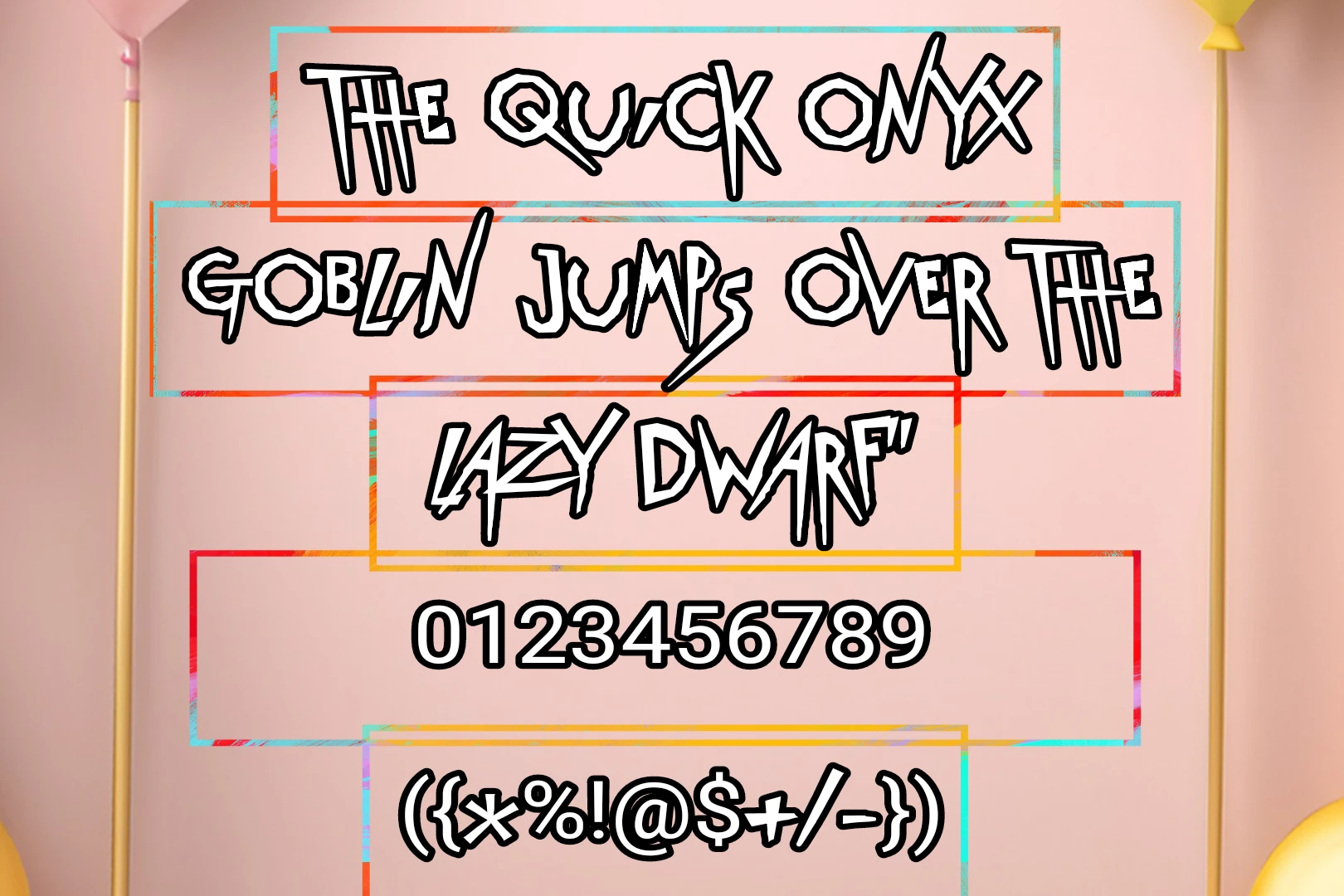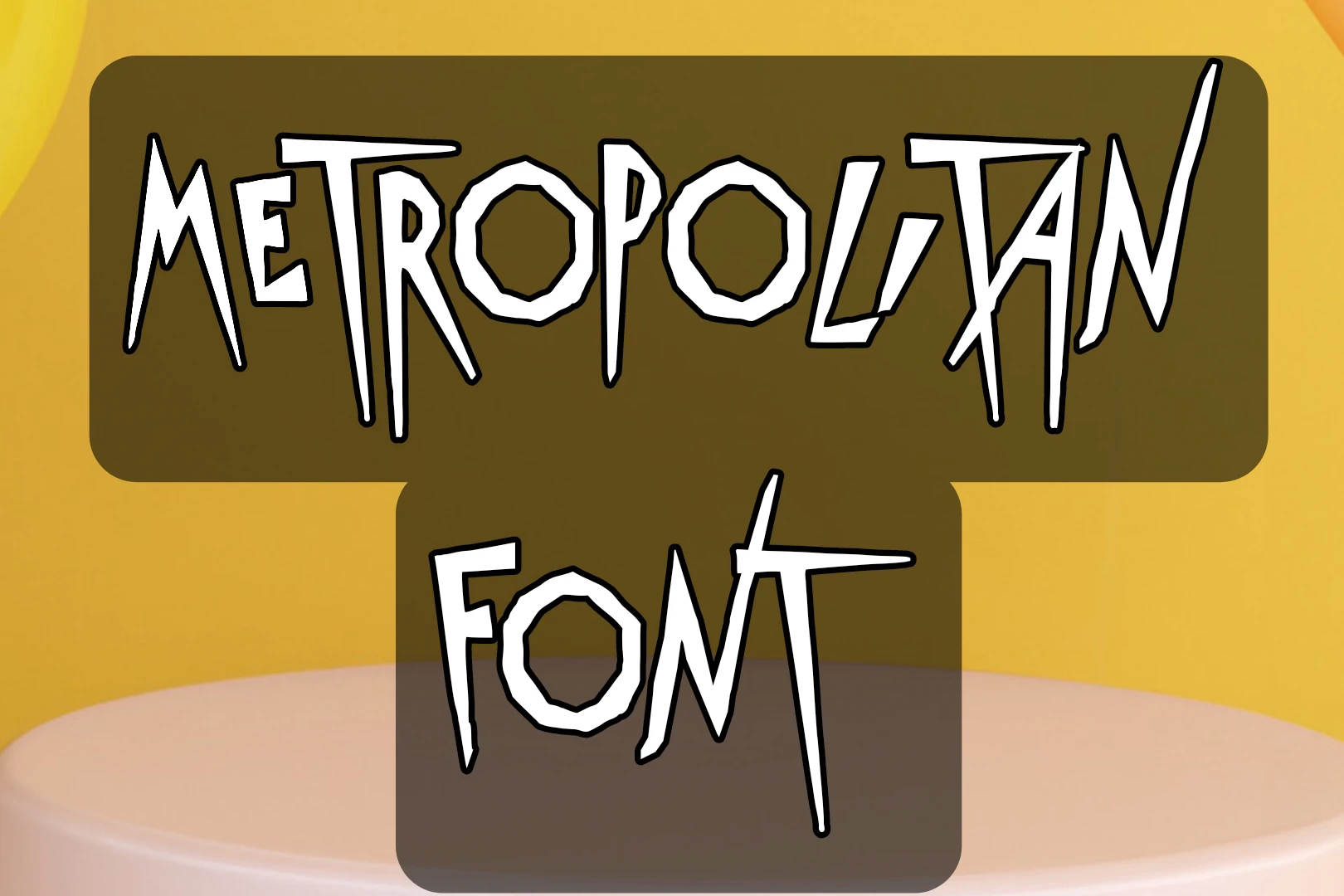
Metropolian Font was designed by Empire of Dust and is under the category of fancy texture family with both OTF and TTF file formats. It is a versatile font that adds an elegant touch to any design project. With its intricate details and sophisticated curves, it captures the essence of timeless beauty. Whether you’re creating wedding invitations, branding materials, or editorial layouts, this typeface will elevate your work to a new level of sophistication.
The OTF and TTF file formats ensure compatibility across different platforms, making them convenient to use. This Font inspire your creativity and bring a touch of glamour to your designs. Introduced to the public in 2015, it quickly gained popularity for its elegant design and versatility.
This font boasts a wide range of glyphs and characters, making it suitable for diverse applications. Its modern and minimalist design allows for creative expression in logo design, website headings, editorial layouts, and more. Additionally, its clean and polished look ensures readability and visual appeal in any design project.
Uses of Metropolian Font
It is widely used across various design projects due to its sleek aesthetic and flexibility. Designers often utilize it in logo creation to achieve a contemporary and professional look. Its clean lines and sophisticated appearance help businesses establish a strong visual identity.
In web design, this font is commonly employed for headings, navigation menus, and body text. Its modern and minimalist style adds a touch of elegance to websites, enhancing the overall user experience.
Furthermore, in editorial design, this font is favored for its readability and versatility. It can be used for magazine headlines, article titles, and pull quotes, providing a cohesive and stylish layout.
| Name | Metropolian Font |
| Designer | Empire of Dust |
| Style | Fancy |